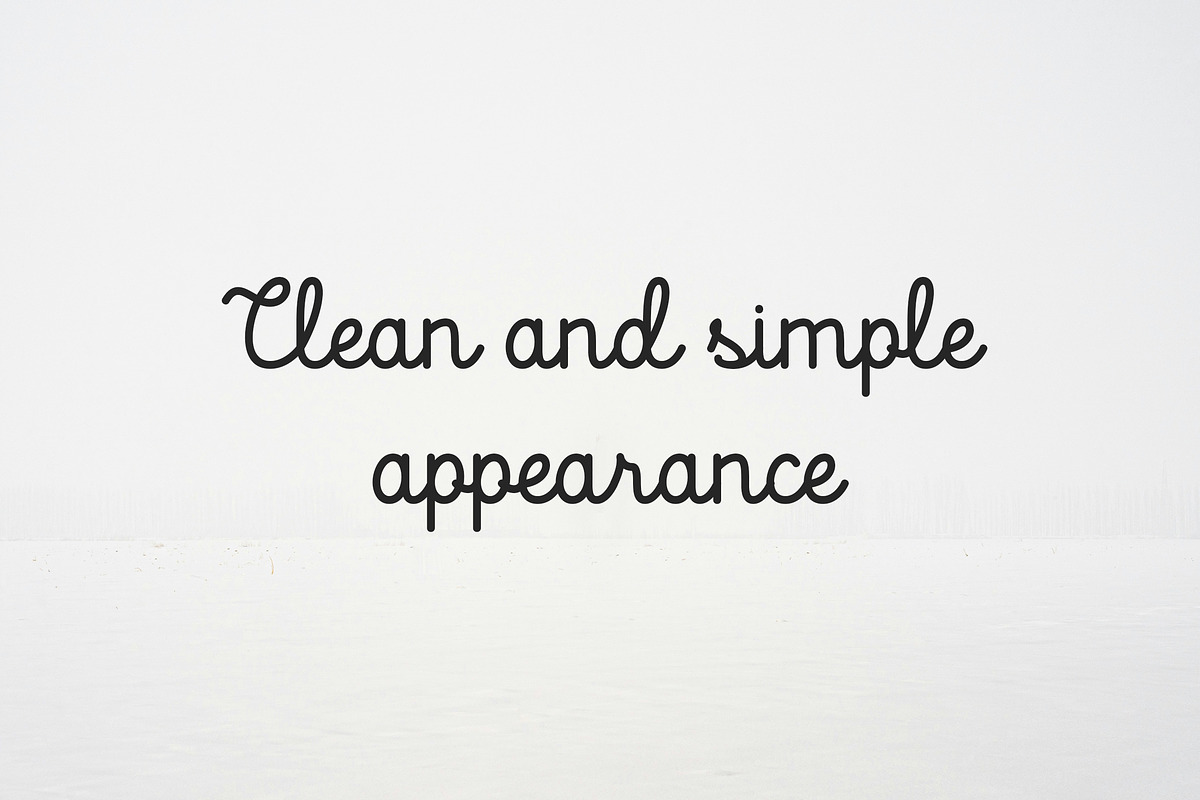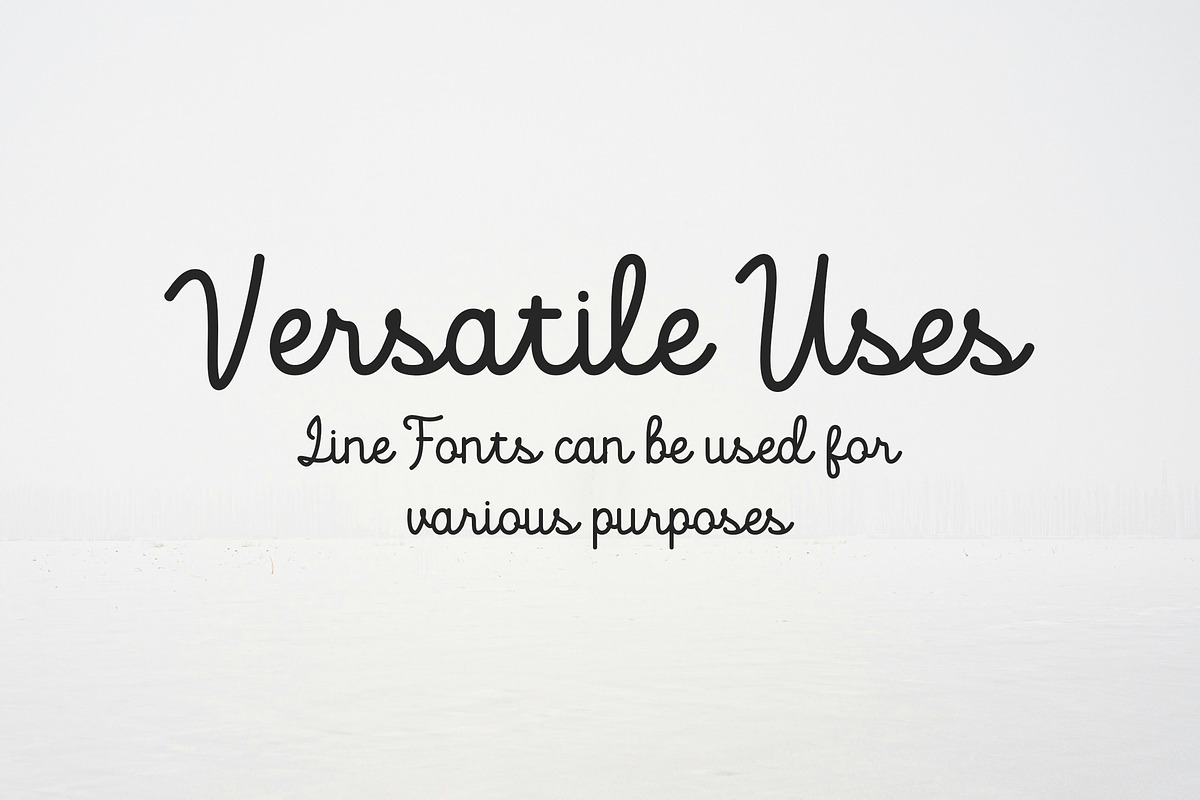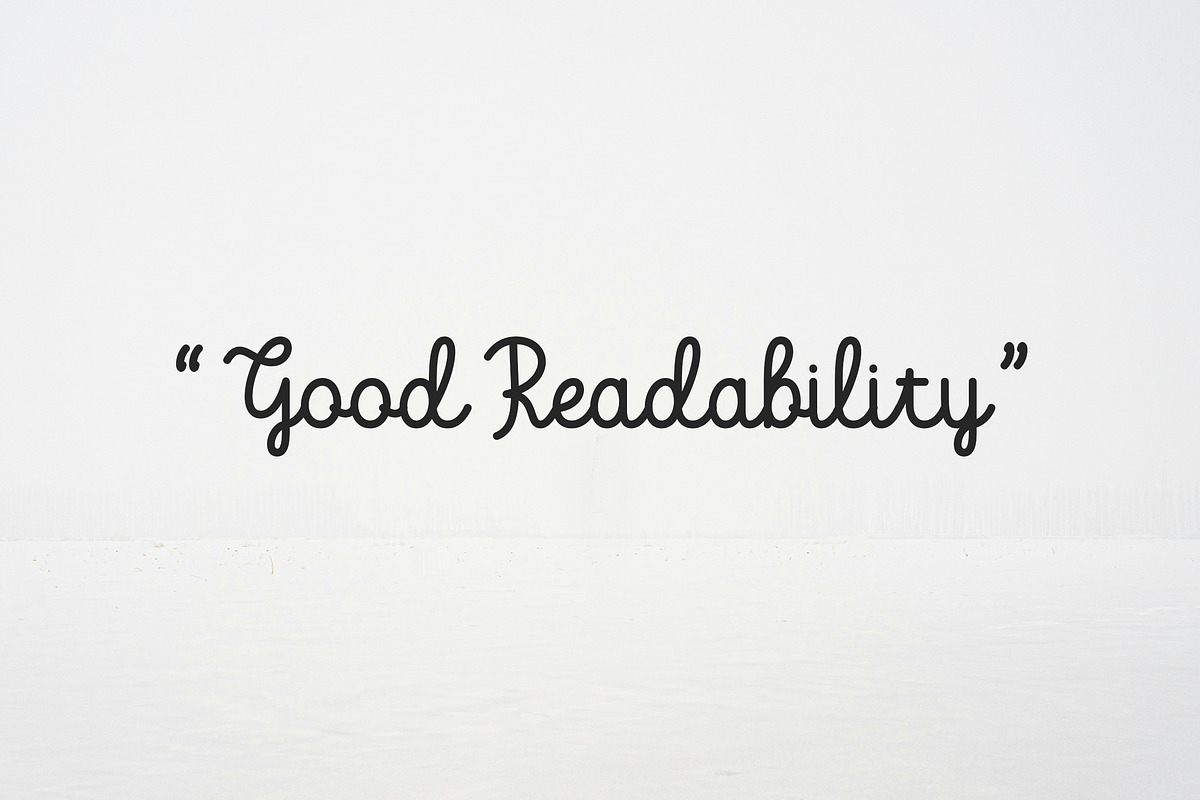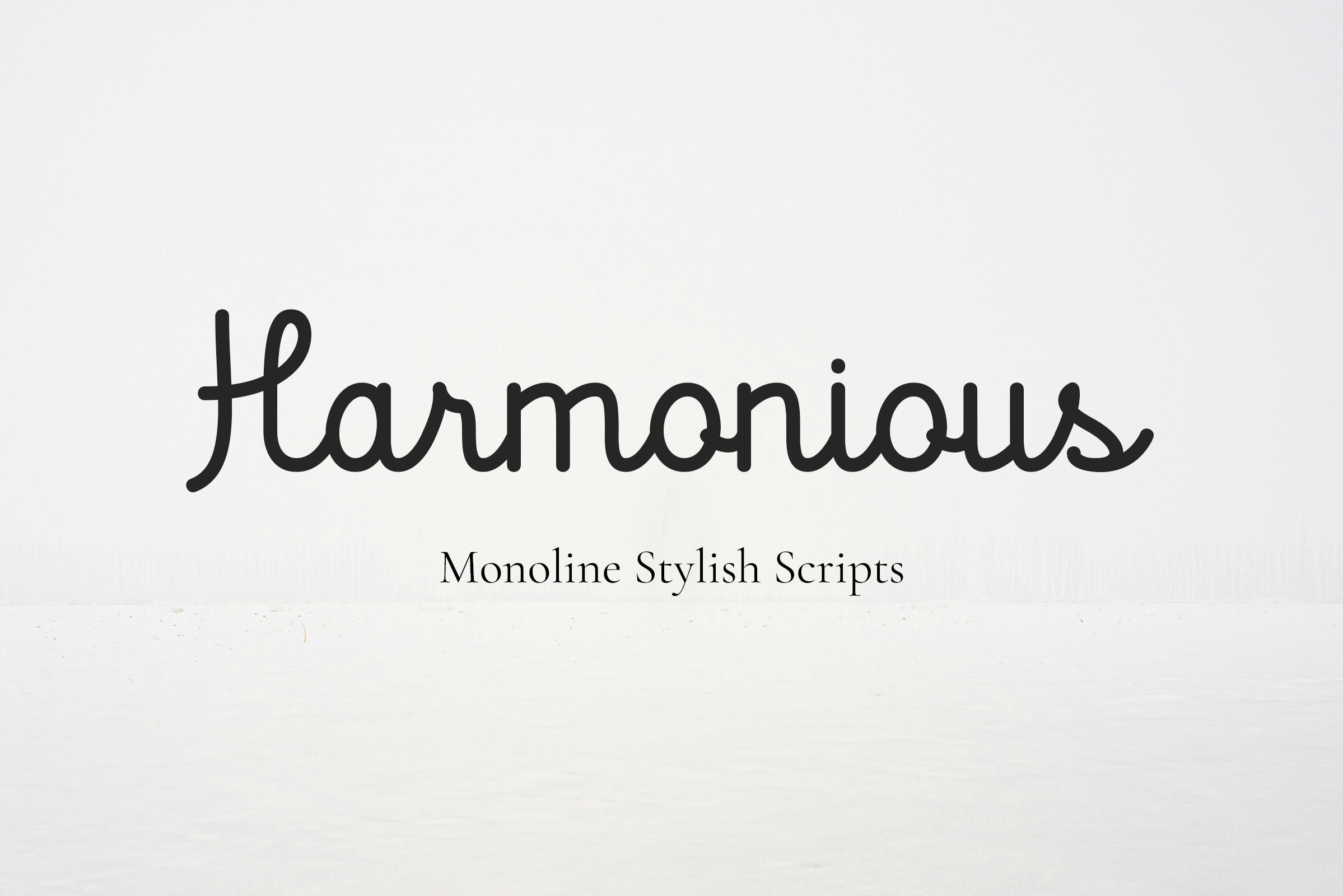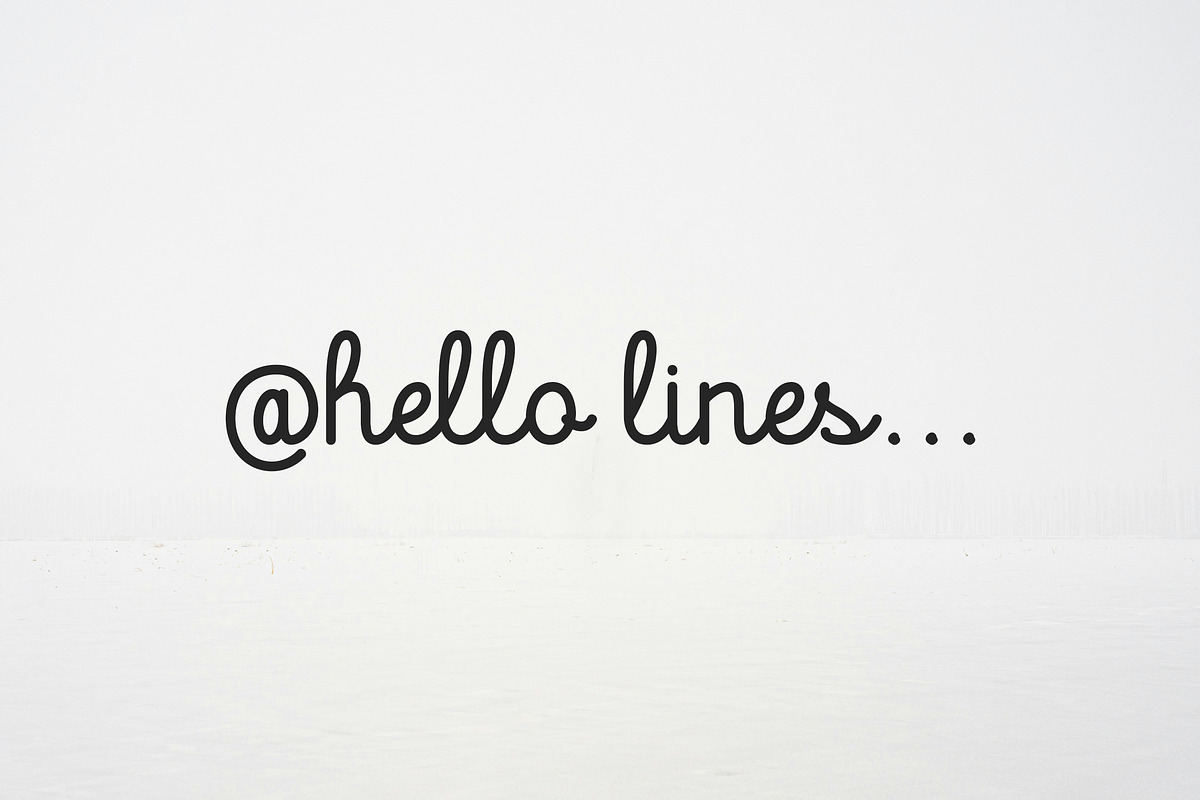
Harmonious - monoline stylish font
Hello everyone, I would like to introduce Harmonious a monoline font with simple and minimalist script Each letter flows onto the next seamlessly. This font will turn any creative idea into a true piece of art. (please type the preview to see if I have what you need!)